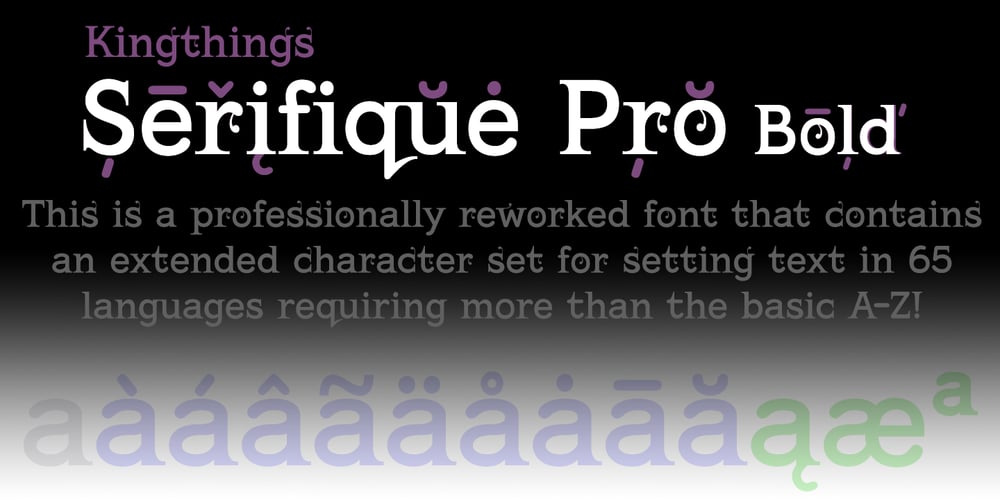
Kingthings Serifique Pro Font Family was designed by Roger S. Nelsson, Kevin King and published by CheapProFonts. Kingthings Serifique Pro contains 4 styles and family package options. This is what you get when you mix monoline rounded letters with some bracketed serifs and finish it off with a sprinkle of ornamental appendages. The result is very readable, rather original and quite charming. I have fixed some inconsistencies in serif designs across the weights, cleaned up the serif connections – and added a fourth weight. But I have kept all the wonky curves and slightly differing stroke thicknesses, as they are so integral to the charm. Kevin King says: “I guess all type designers at some point think ‘Well, I’ll just have a go at a standard text face…’ There is a long story here somewhere, suffice it to say that I started with the thinnest version – typical. I wanted to make a standard serif text face – until I saw it in print and thought “Yuk! it looks like everything else!” – still does really but with twiddles and pooneys…” If you find the “twiddles & pooneys” too much you can tone them down with the OpenType Stylistic Alternate feature (which will make sure they don’t appear on three consecutive letters) or remove them completely with the OpenType Swash feature. ALL fonts from CheapProFonts have very extensive language support: They contain some unusual diacritic letters (some of which are contained in the Latin Extended-B Unicode block) supporting: Cornish, Filipino (Tagalog), Guarani, Luxembourgian, Malagasy, Romanian, Ulithian and Welsh. They also contain all glyphs in the Latin Extended-A Unicode block (which among others cover the Central European and Baltic areas) supporting: Afrikaans, Belarusian (Lacinka), Bosnian, Catalan, Chichewa, Croatian, Czech, Dutch, Esperanto, Greenlandic, Hungarian, Kashubian, Kurdish (Kurmanji), Latvian, Lithuanian, Maltese, Maori, Polish, Saami (Inari), Saami (North), Serbian (latin), Slovak(ian), Slovene, Sorbian (Lower), Sorbian (Upper), Turkish and Turkmen. And they of course contain all the usual “western” glyphs supporting: Albanian, Basque, Breton, Chamorro, Danish, Estonian, Faroese, Finnish, French, Frisian, Galican, German, Icelandic, Indonesian, Irish (Gaelic), Italian, Northern Sotho, Norwegian, Occitan, Portuguese, Rhaeto-Romance, Sami (Lule), Sami (South), Scots (Gaelic), Spanish, Swedish, Tswana, Walloon and Yapese.